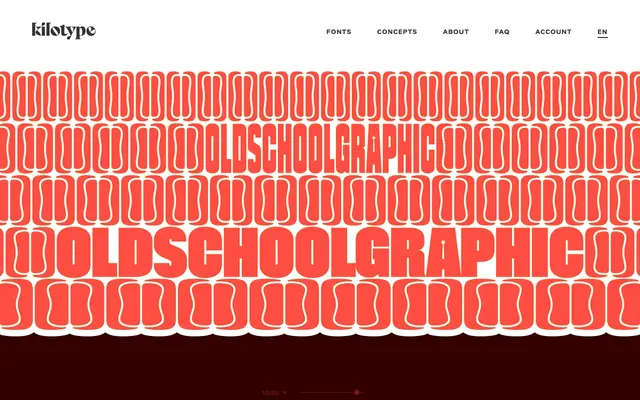
Oldschool Graphic
Kilotype · William Montrose · 2025
Oldschool Graphic specimen from Kilotype
A sideways spin-off from Oldschool Grotesk by William Montrose, available in two extreme widths with interlocking terminals and reversed contrast.
Oldschool Graphic emerged from pushing the variable parameters of Oldschool Grotesk to their logical extremes and then beyond. The 100 width is severely compressed with a dense, patterned rhythm, while the 1000 width relies on interlocking letterforms and a lively play of shapes and counter-shapes. Reverse contrast and punch-hole details in the compressed cut give it a distinctly mechanical, stapler-adjacent character that sets it apart from its parent family.
An experimental display sans derived from Oldschool Grotesk, available in extreme compressed and ultra-heavy widths with reversed contrast, interlocking terminals and punch-hole details that push it firmly into display territory.